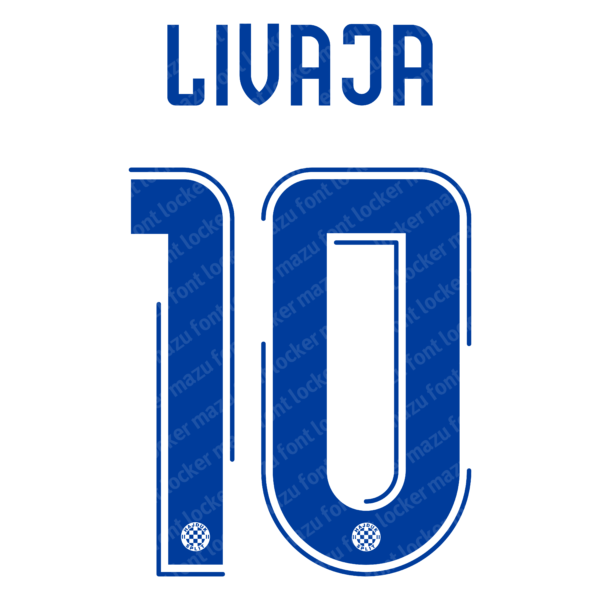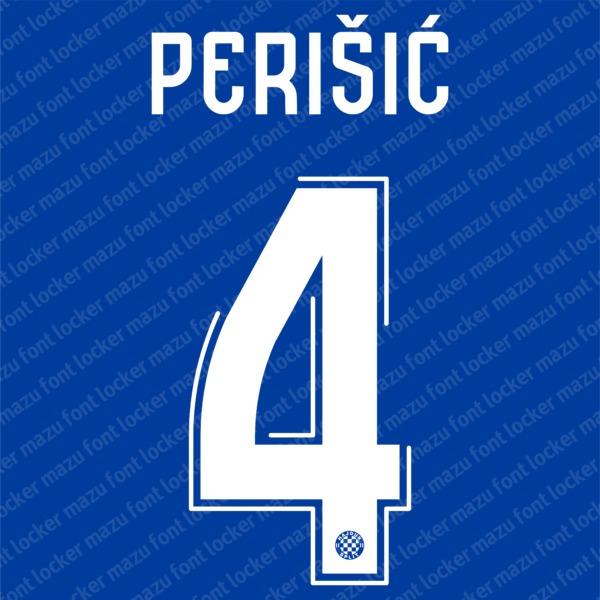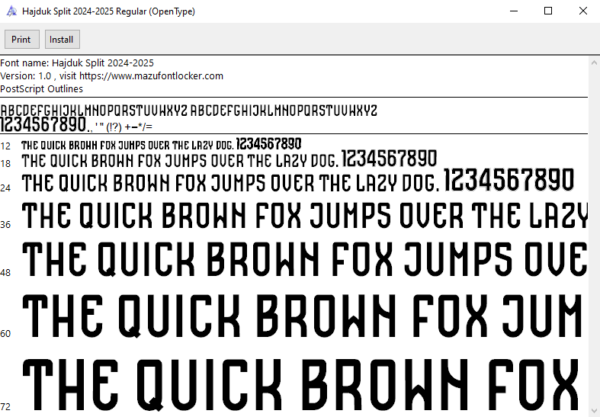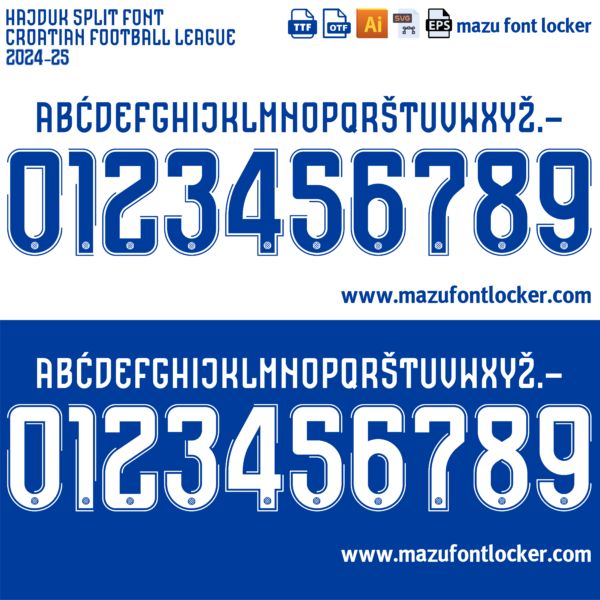
Hajduk Split 2024-2025 Font Vector – Legendary Bili Warriors Masterpiece
Download Hajduk Split 2024-2025 Font now and unleash the passionate fighting spirit of the Bili straight into your designs. This premium vector font perfectly captures the bold, fiery, and electrifying identity of Hajduk Split during their powerful 2024-2025 season. Every letter and number is crafted with razor-sharp precision, dynamic edges, and majestic details that reflect the club’s legendary resilience, loyal fanbase, and proud Dalmatian heritage.
Whether you’re creating matchday posters, fan merchandise, custom jerseys, social media graphics, t-shirts, or premium digital artwork, this Hajduk Split 2024-2025 Font delivers professional quality with stunning vibrancy and maximum impact. The font masterfully combines modern strength with the authentic white, blue, and red identity of Hajduk Split, making every headline roar with true Torcida pride and intensity.
Elevate your projects with authentic Bili DNA and let your creativity burn like the flames of the Poljud Stadium.
Hajduk Split 2024-2025 Font Vector
The Hajduk Split 2024-2025 Font is a premium, high-precision football jersey font vector meticulously engineered to capture the fearless energy, explosive passion, and electrifying identity of Hajduk Split’s legendary 2024-2025 campaign.
Inspired by the mighty Bili and their iconic, high-intensity performances throughout the unforgettable 2024-2025 season, this font unleashes a bold, aggressive, and majestic presence that radiates unbreakable Hajduk pride, rich heritage, and unstoppable warrior spirit. Every letter and number has been painstakingly recreated with razor-sharp precision to embody the vibrant white, blue, and red identity, relentless fighting mentality, and glorious legacy that makes Hajduk Split one of the most passionate and feared forces in Croatian and European football.
Feel the fire of Poljud Stadium. Ignite the passion. Unleash the legendary spirit of the Bili and the unstoppable power of Hajduk Split 2024-2025.
• Authentic 2024-2025 Hajduk Split jersey lettering style
The authentic lettering style helps recreate the classic look of the Hajduk Split 2024-2025 kit with professional accuracy.
Unlike generic jersey fonts, this premium set is crafted with obsessive attention to authenticity and accuracy. Every detail is faithfully recreated from the original match lettering style used by Hajduk Split during the 2024-2025 season — capturing the true spirit and passion of the Bili.
This enables designers and collectors to create highly realistic football shirt designs that look like official kits straight from Poljud Stadium.
This Hajduk Split 2024-2025 font vector set is designed for authentic football jersey customization and works perfectly for retro football projects, collector designs, and professional sportswear artwork.